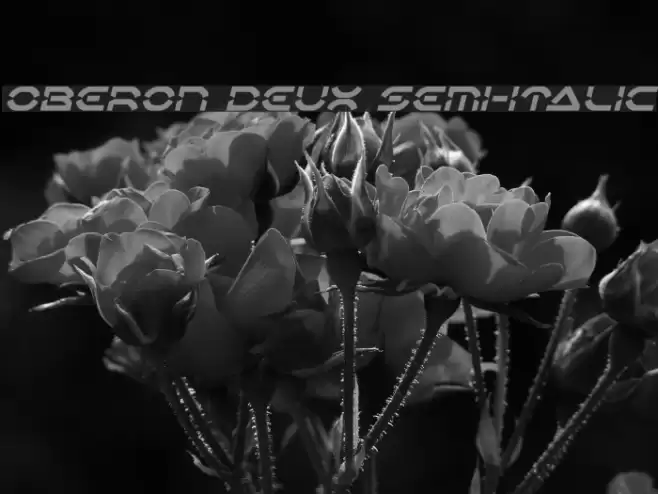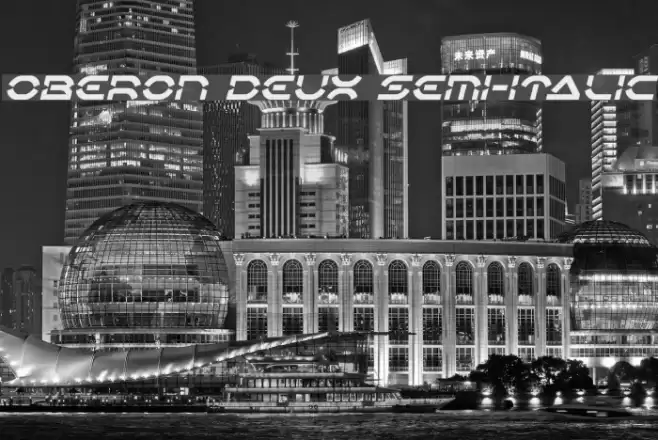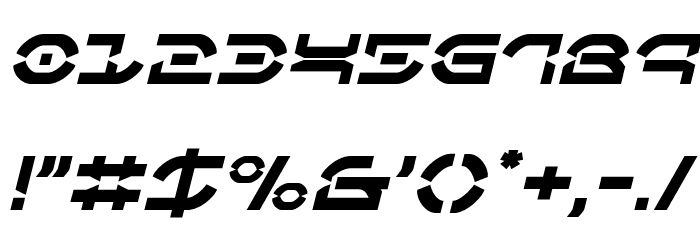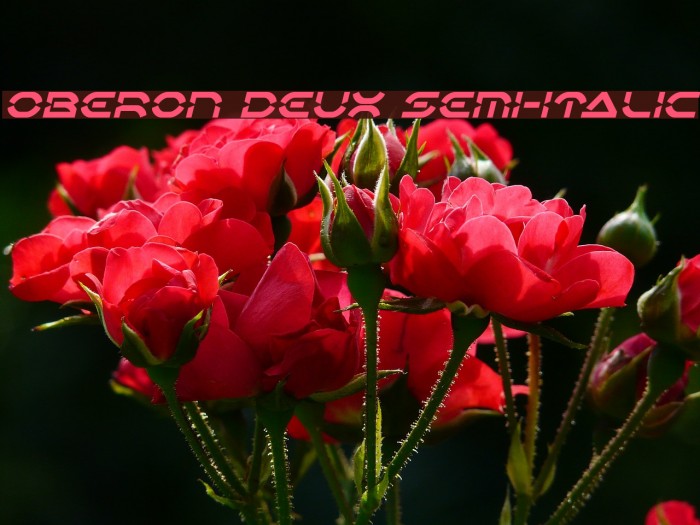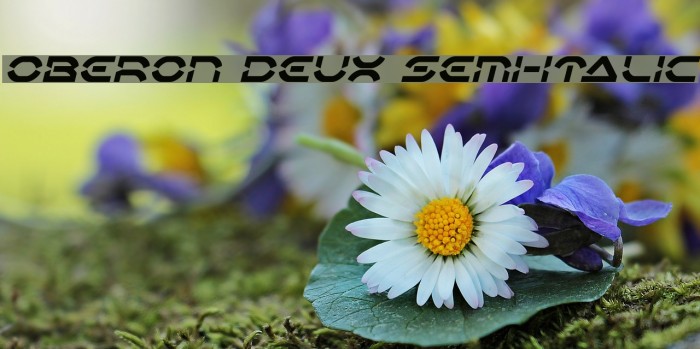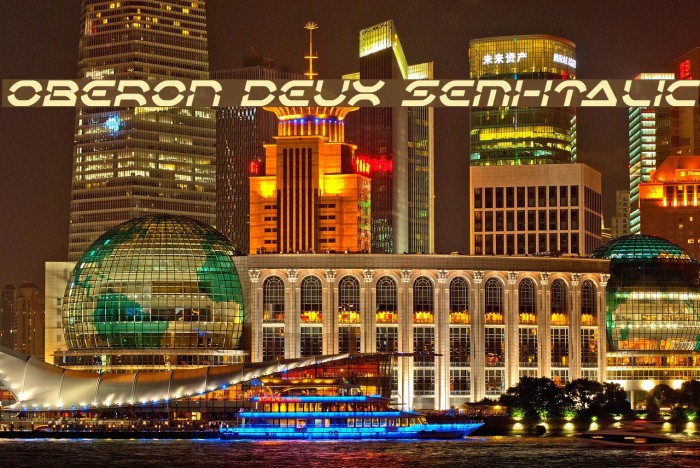
Oberon Deux Semi-Italic Font
Oberon Deux Semi-Italic Description
This font features a futuristic and angular design, characterized by sharp edges and geometric shapes. The letters are bold and have a semi-italic slant, giving them a dynamic and forward-leaning appearance. The uppercase and lowercase letters maintain a consistent style, with unique cuts and angles that create a sense of movement. The numbers and special characters follow the same design principles, ensuring uniformity across the font. The overall look is modern and tech-inspired, making it suitable for projects that require a bold and distinctive typeface.
A futuristic, angular font with a bold, semi-italic style from Sci-fi fonts.
- Proposed Projects: Ideal for technology branding, sci-fi movie posters, video game titles, and modern digital interfaces.